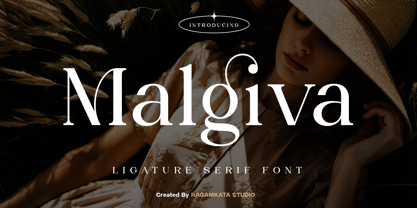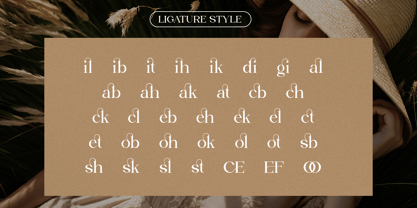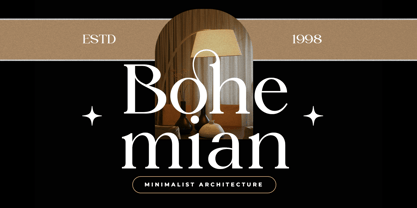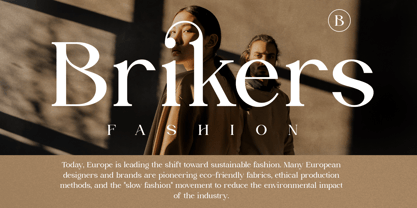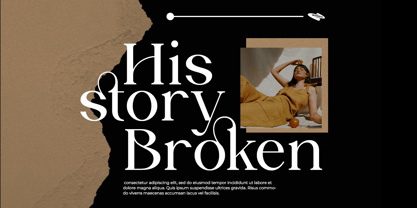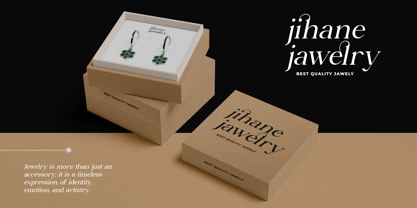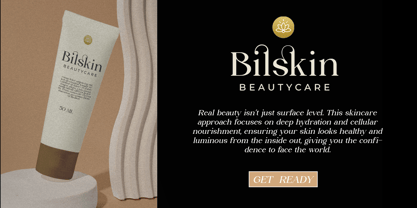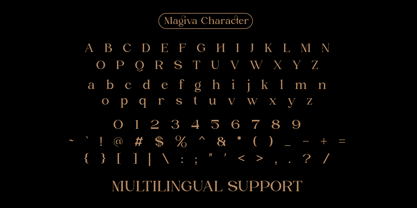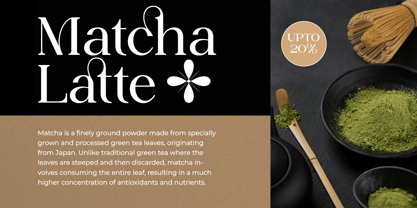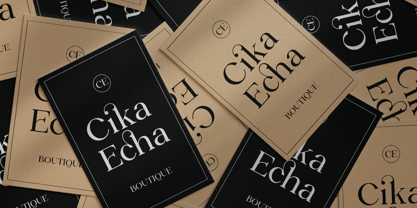
Malgiva
by RagamKata
The Malgiva Font Family was designed by Yogiswhara Dio Prakoso Riadi and published by RagamKata. Malgiva contains 2 styles and family package options. More about this family
Malgiva is a refined ligature serif typeface that embodies elegance, softness, and a premium visual character. With its smooth curves, balanced contrast, and exquisite ligature connections, Malgiva offers a sophisticated and graceful aesthetic, perfect for luxury-oriented design. The classic yet modern structure of this typeface creates timeless typography that feels warm, romantic, and visually captivating. Ideal for branding designers, fashion creatives, wedding stylists, lifestyle brands, and editorial creators, Malgiva serves as a versatile typographic solution for elegant visual communication. Whether for logos, fashion labels, beauty packaging, magazine layouts, boutique branding, wedding invitations, social media campaigns, or luxury promotional materials, this font elevates every project with refined charm and emotional appeal. Malgiva is particularly suited for high-end branding, editorial layouts, wedding stationery, feminine branding, cosmetic packaging, lifestyle promotions, and premium social media content, bringing harmony, softness, and sophistication to every composition. Its graceful ligatures and classic serif structure ensure excellent readability while adding artistic elegance across both print and digital media. Thank You! Ragamkata